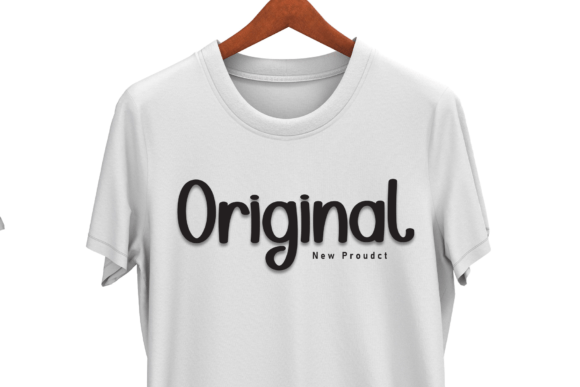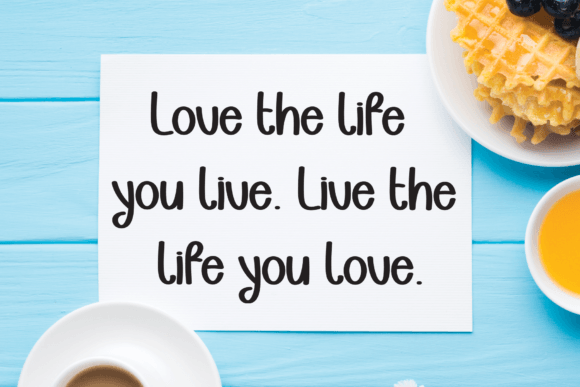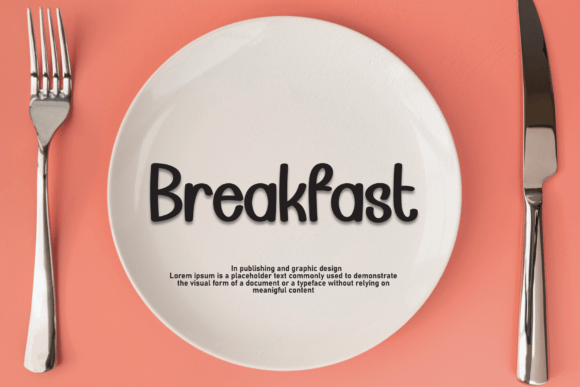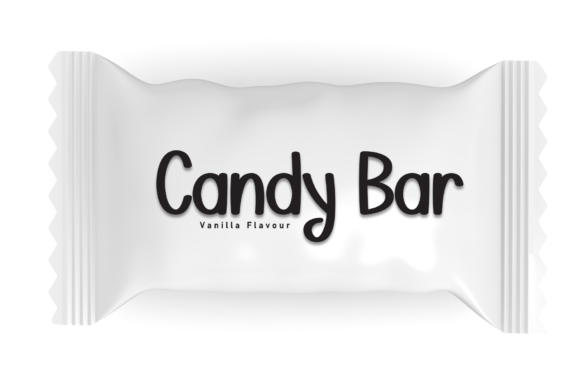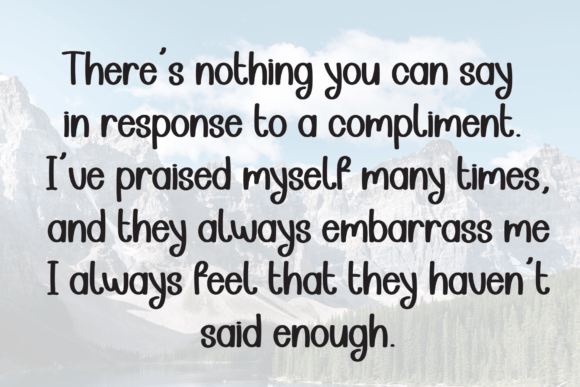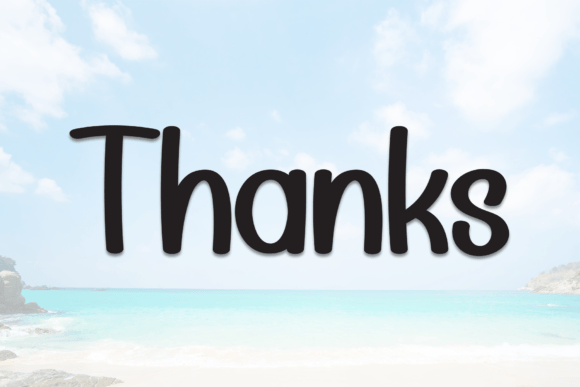
A Splash of Whimsy: Introducing Beach Summer Font
Have you ever sat on a sun-kissed beach, watching the waves gently lap at the shore, and felt the urge to create something truly special? Maybe it was a design project, a handmade card, or a heartfelt letter – whatever it was, you wanted it to capture the carefree essence of that magical moment. The Beach Summer Font is here to help you bring that feeling to life.
This charming handwritten display font is designed to infuse your creative projects with a playful, storybook-like charm. Whether you’re planning a summer wedding, crafting invitations, or simply want to add some whimsy to your everyday communication, Beach Summer Font is the perfect companion. Its versatility and friendliness make it a valuable addition to any designer’s toolkit, and we’re excited to share its delightful charm with you.
Beach Summer Font Key Features
- Unique Characteristics: Features a playful, handwritten style with a relaxed, beach-inspired feel
- Font Style: Includes regular, italic, bold, and bold italic styles
- Character Set: Supports Latin, Cyrillic, Greek, and many other languages
Beach Summer Font Review
I recently had the chance to work with the “Beach Summer Font”, and I must say it’s a unique addition to any project. ✨ The font’s casual and playful vibe makes it perfect for summer-themed designs, vacation websites, or even merchandise for a beach resort.
The font’s key features that I liked include:
- ✨ Wide range of character sets, including uppercase and lowercase letters, numbers, and punctuation.
- ✨ Customizable and highly legible, making it suitable for various font sizes.
- ✨ Supports a variety of languages, ensuring global compatibility.
- ⚠️ Limited script support, which may not be ideal for designs requiring cursive or handwritten elements.
- ⚠️ Some users may find the font’s width too wide, affecting readability at smaller sizes.
- ⚠️ The font may not be suitable for formal or professional designs, as its casual nature may clash with the tone.
Overall, I think the “Beach Summer Font” is a solid addition to any designer’s toolkit. While it has its limitations, it excels in capturing a carefree summer vibe. If you’re working on a project that requires a relaxed, beachy feel, this font is definitely worth considering.
The Beach Summer Font is perfect for creating a fun and carefree vibe. Use it for:
- Summer-themed designs, such as beach invitations or vacation brochures.
- Food and drink labels, such as ice cream or smoothie menus.
- Children’s party designs, such as birthday invitations or decorations.
Remember to pair the Beach Summer Font with bright and playful colors to maximize its impact.
What is the minimum font size recommendation for the Beach Summer Font?
We recommend using the Beach Summer Font at a minimum size of 12 points for optimal legibility. However, you can adjust the font size based on your specific design requirements and the intended use of the font. For digital applications, such as website and mobile app design, a minimum font size of 14 points is recommended.